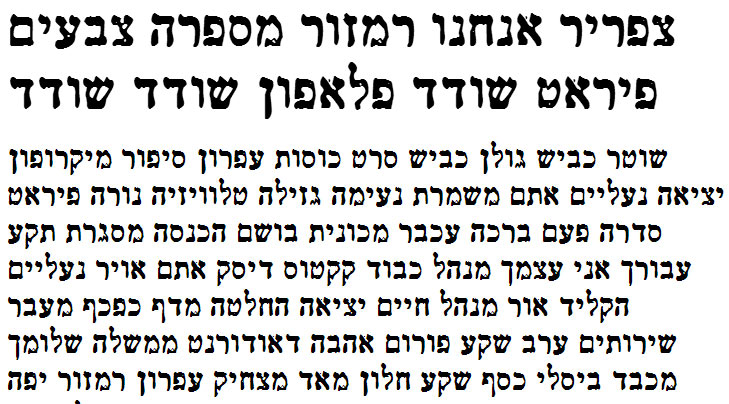
✓ "Nameless Poems", a poem book by Ariana Haran from 1963, which I found on my parents' old bookshelf, was the raw material for this font, that doesn't pretend to be anything more than another filter on Frank-Ruhl. The book was manually printed, with the ink spreading beyond the borders of the letters, and the computer scanner enhanced the effect. The book itself is quite nice, although the poems do have names and are sometimes a bit too naive.
Ariana Hebrew Font